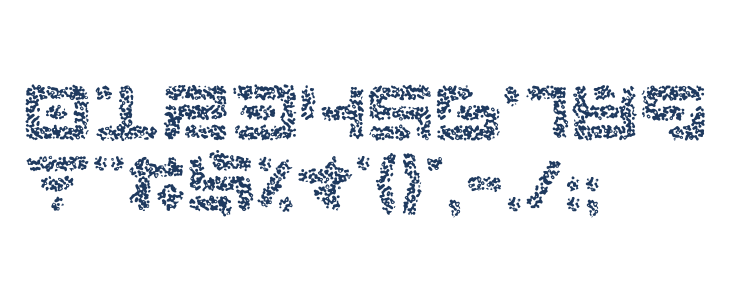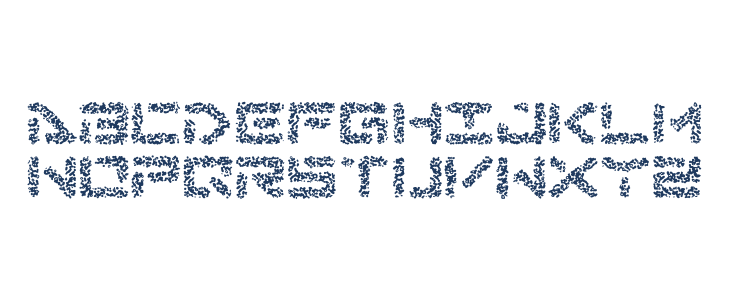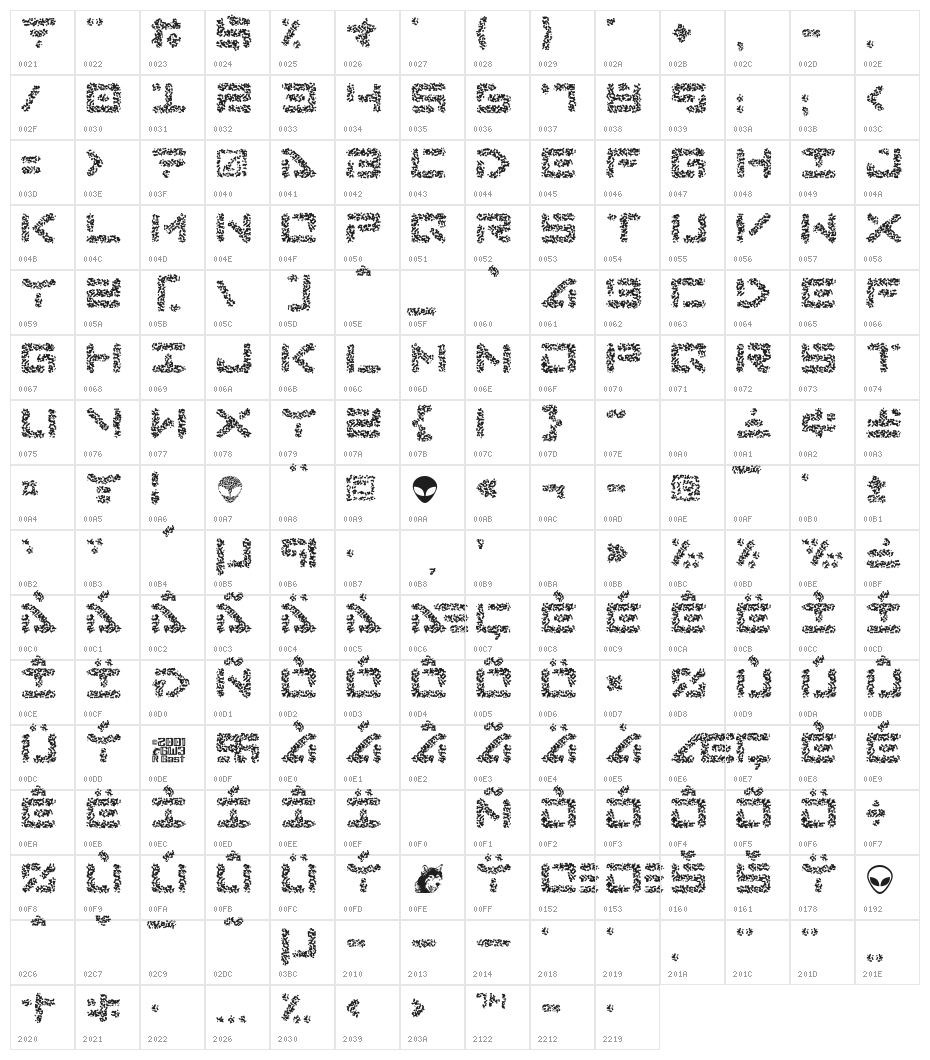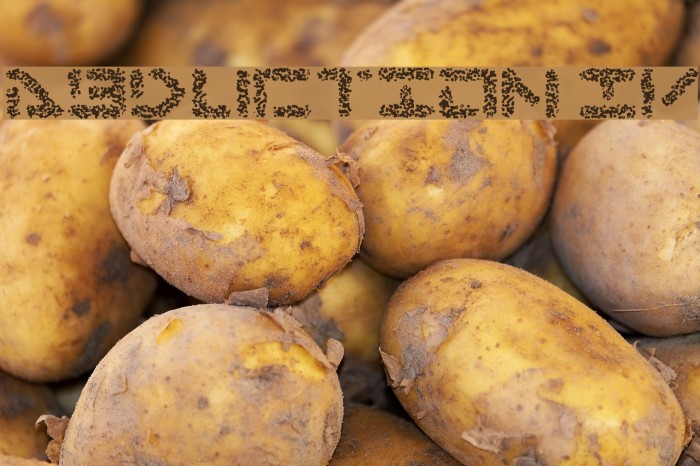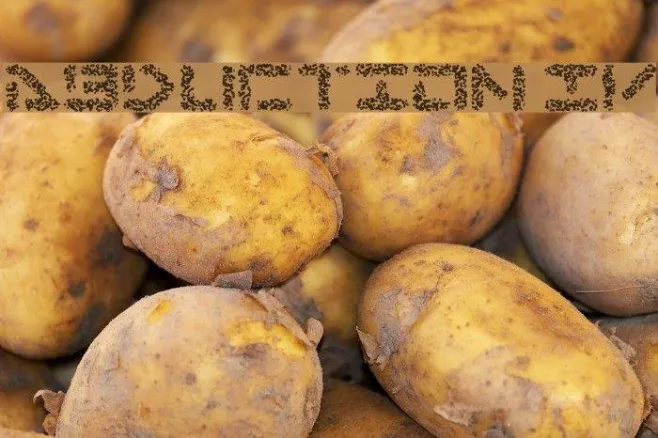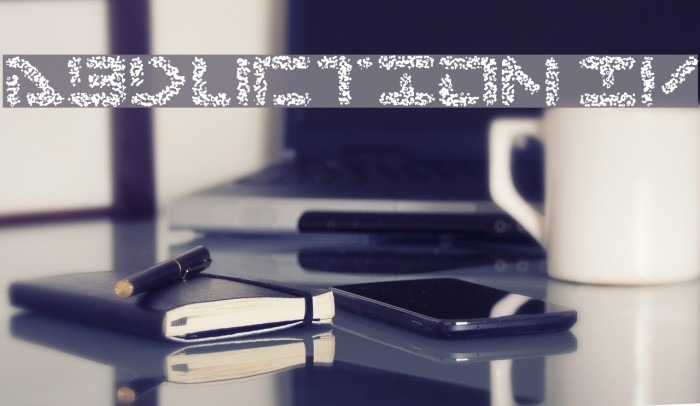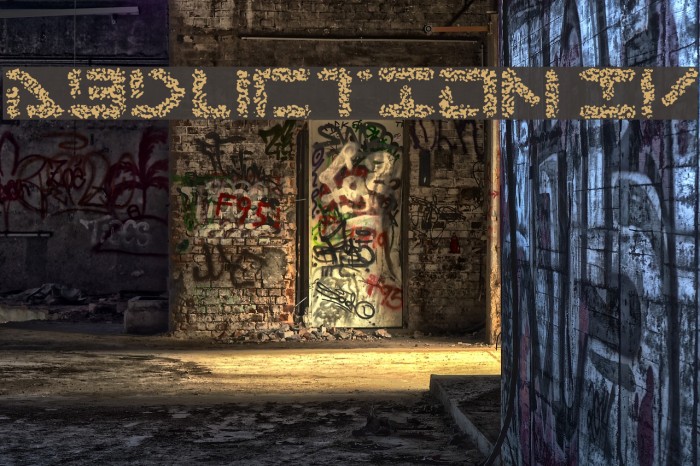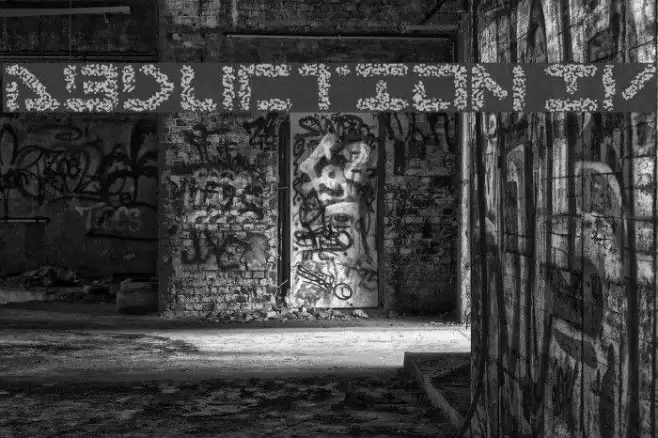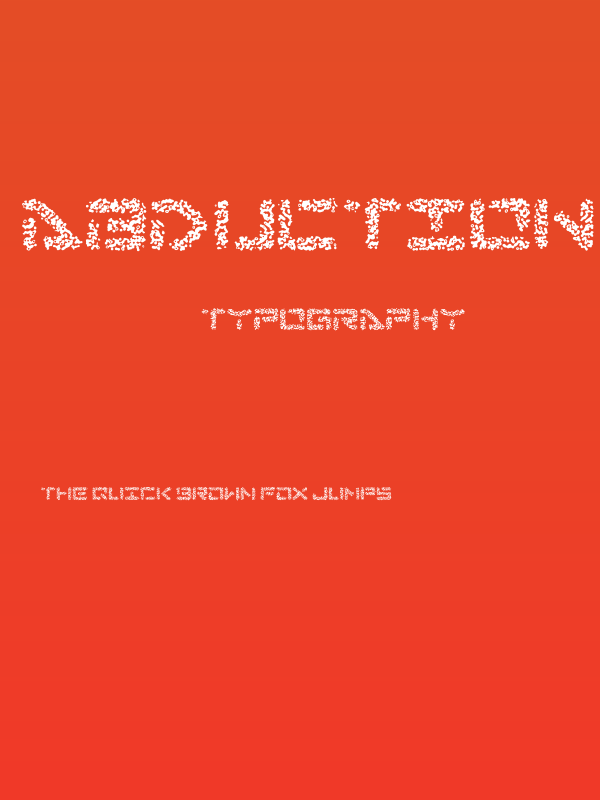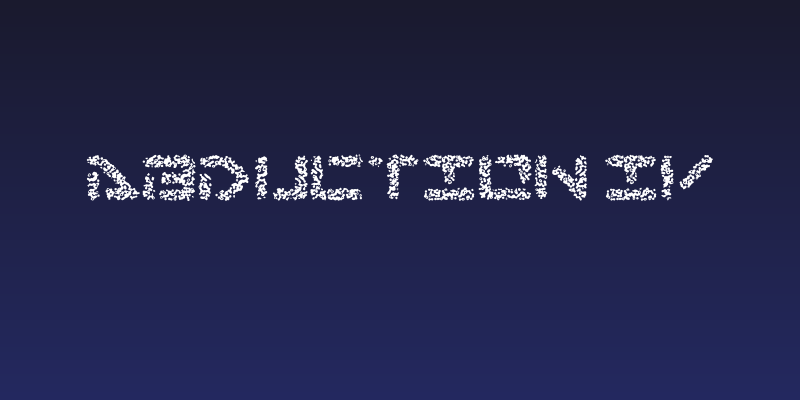
Abduction IV Font
Abduction IV Description
This font features a unique and captivating design, characterized by its fragmented and pixelated appearance. Each character is composed of small, irregular shapes that create a textured, almost digital camouflage effect. The overall look is both modern and edgy, making it stand out in any design project. The uppercase and lowercase letters maintain a consistent style, ensuring readability despite the unconventional design. Numbers and special characters are also included, following the same fragmented pattern, which adds to the font's cohesive aesthetic. This font is perfect for projects that require a bold statement or a futuristic touch.